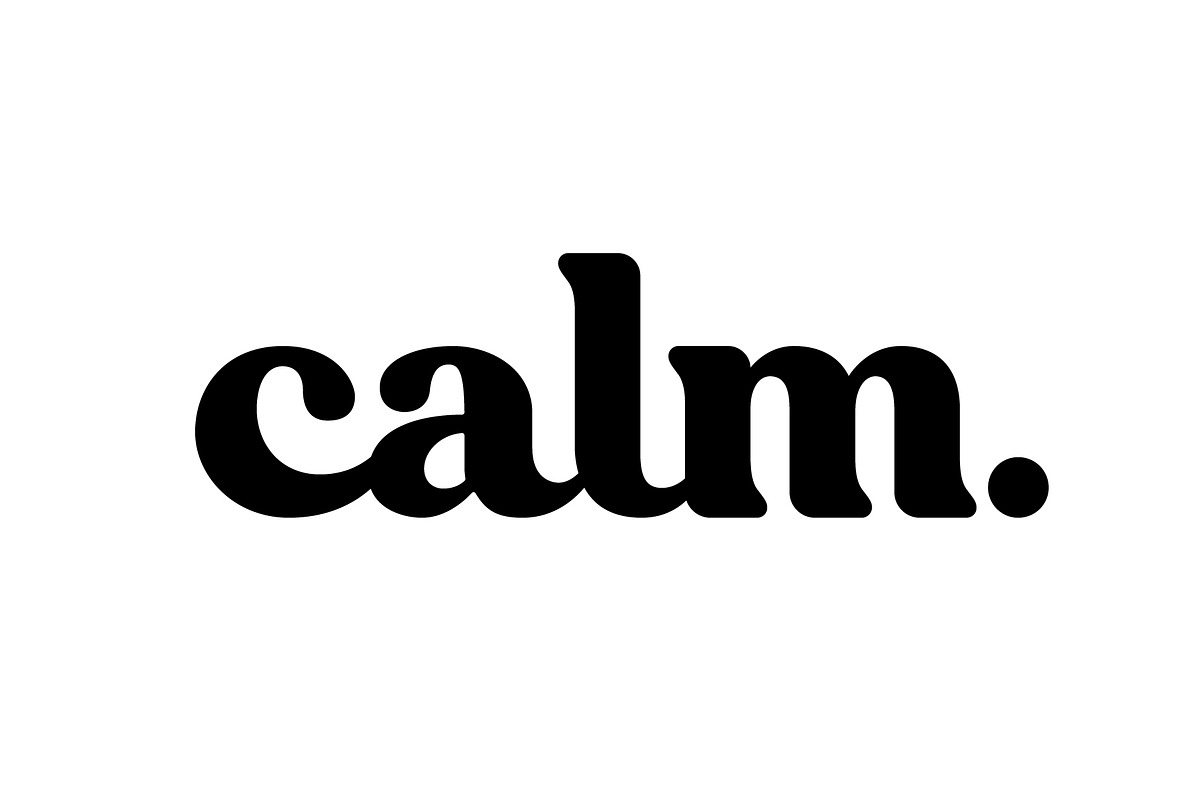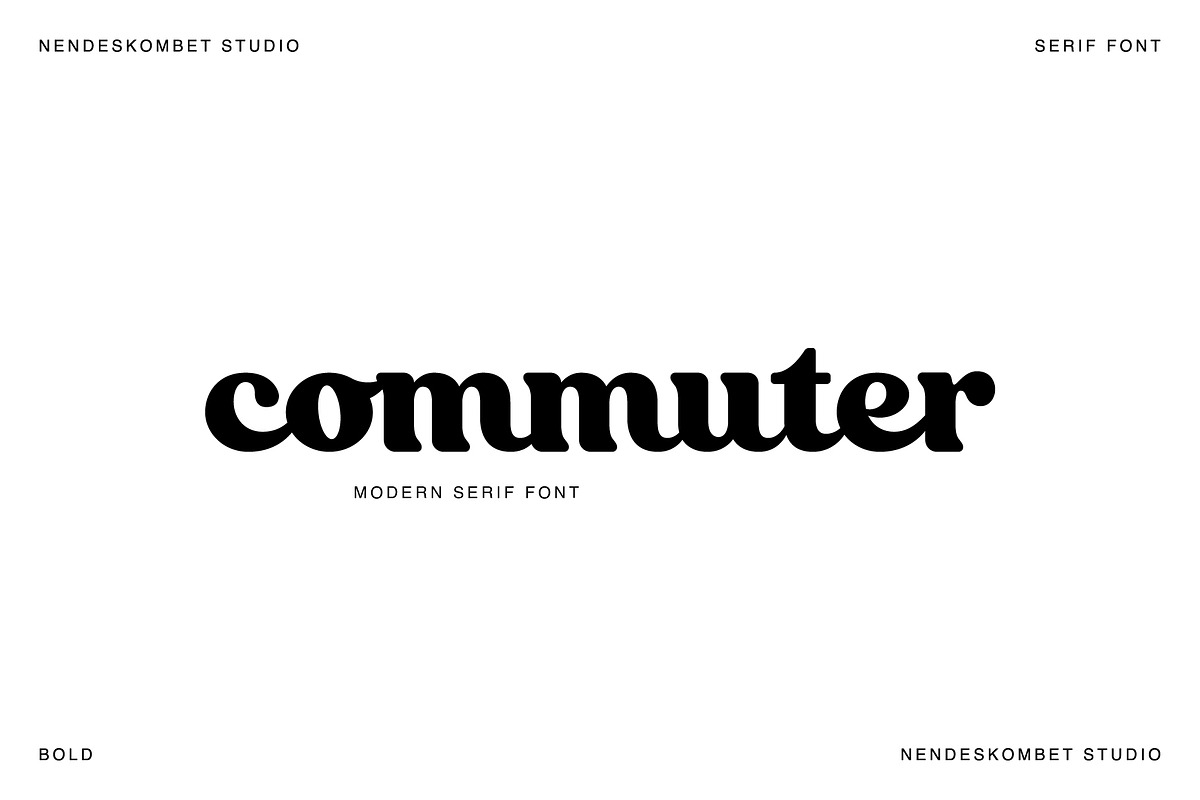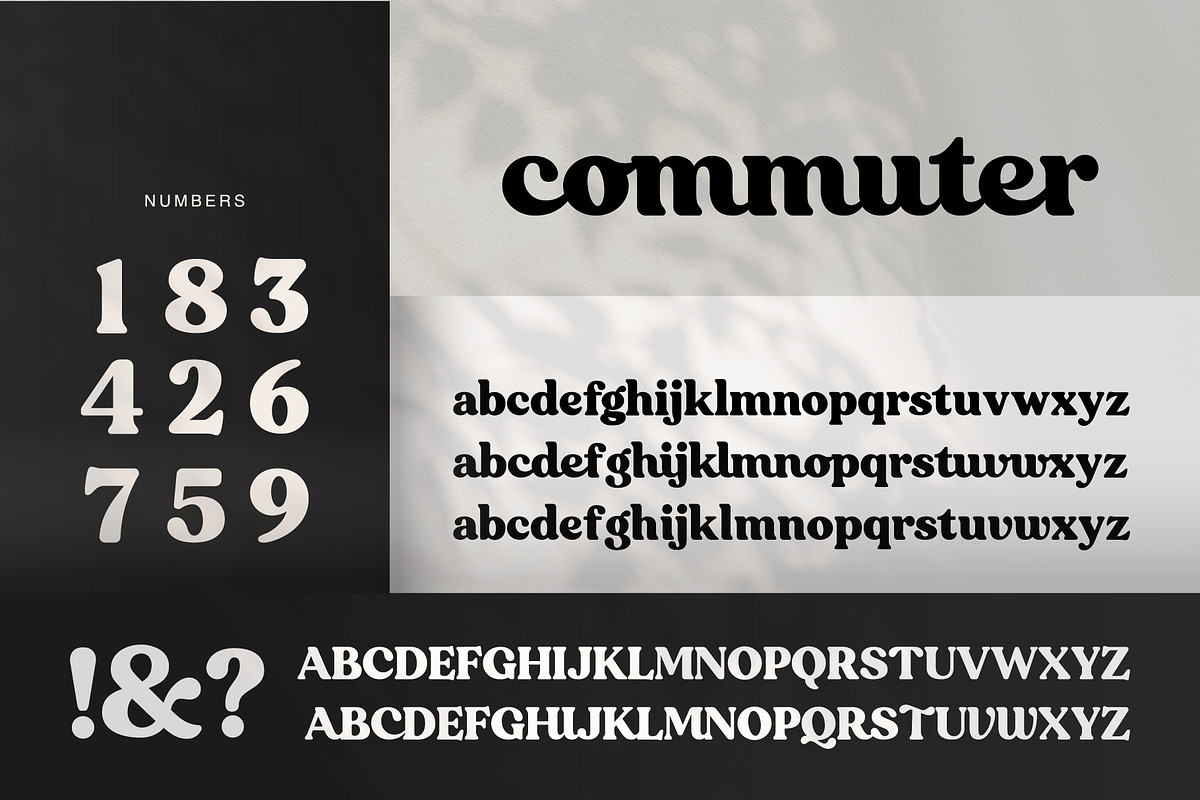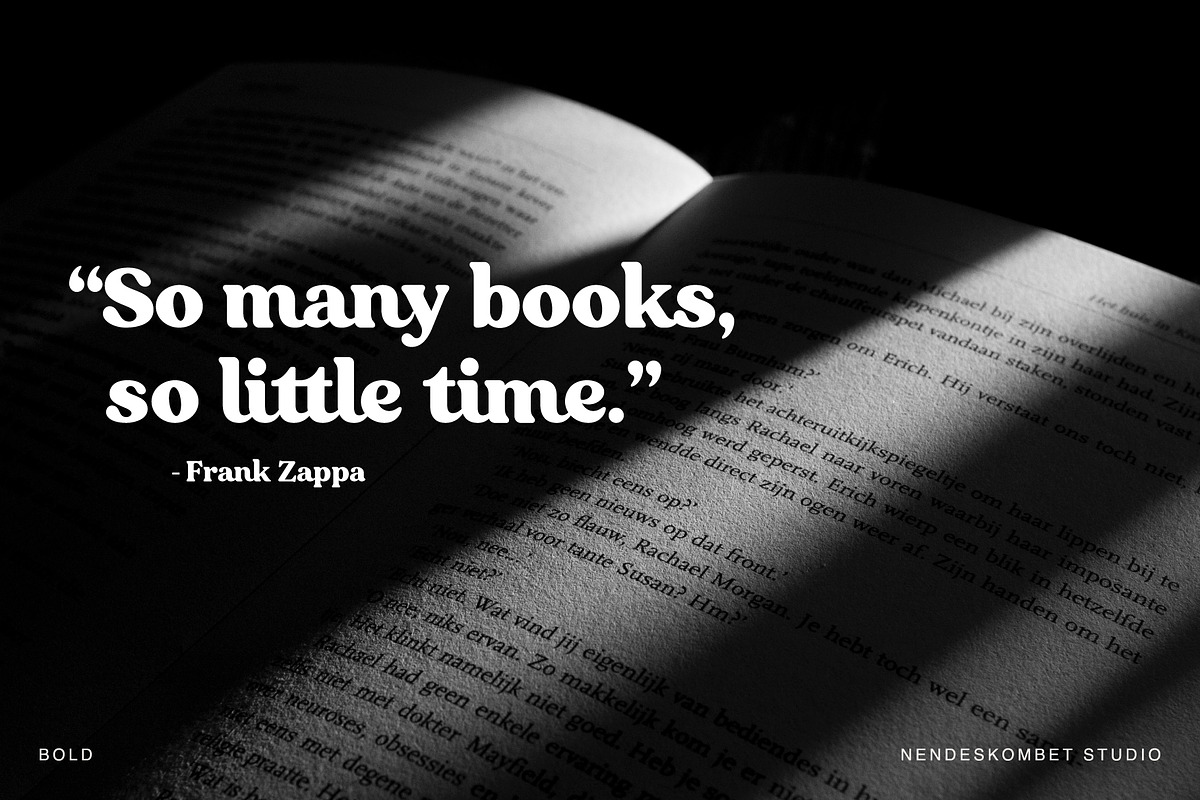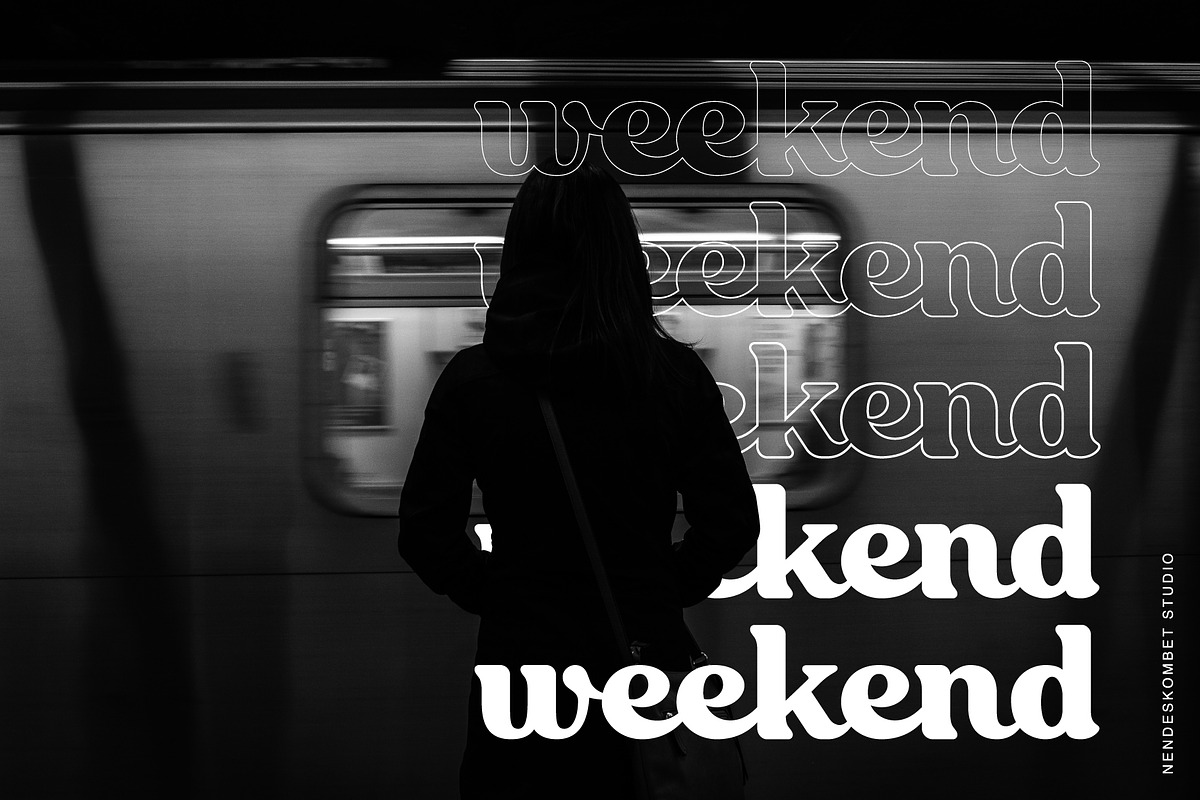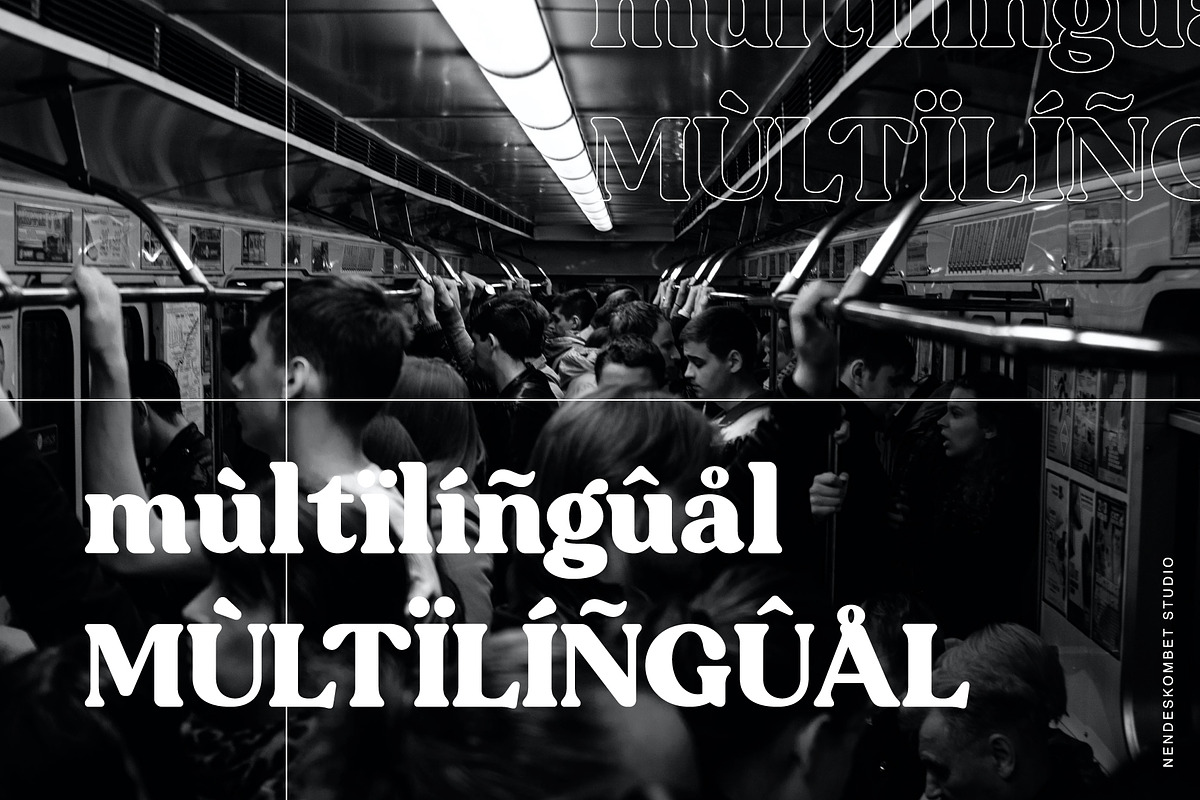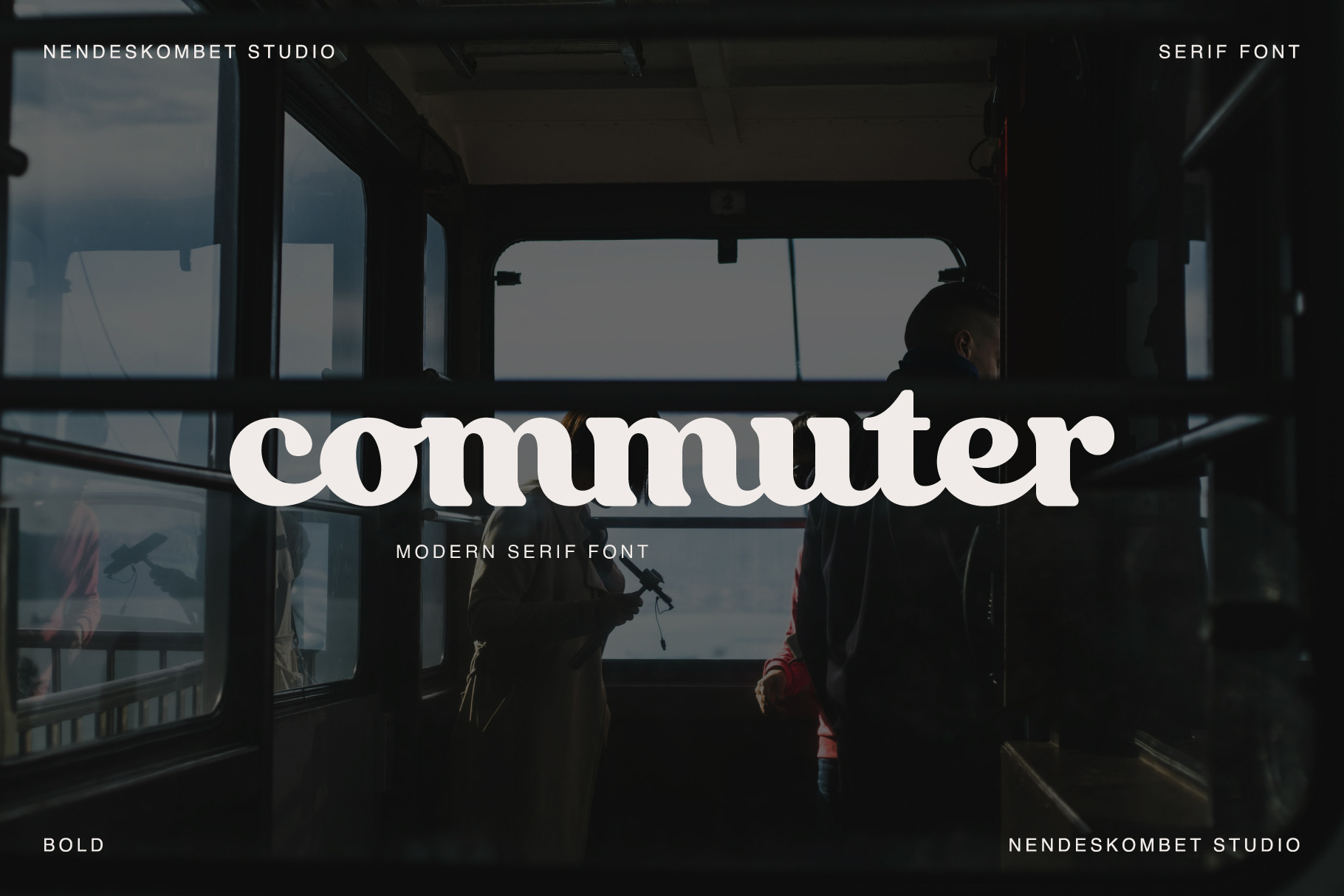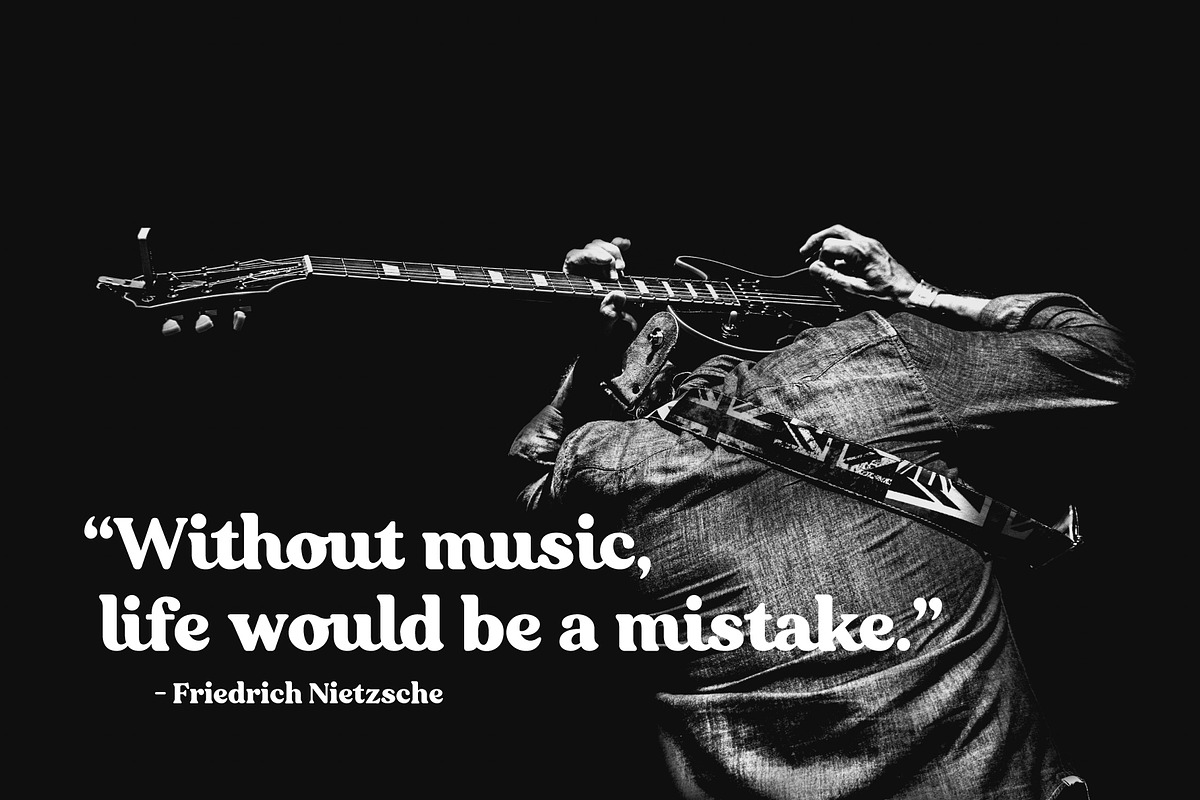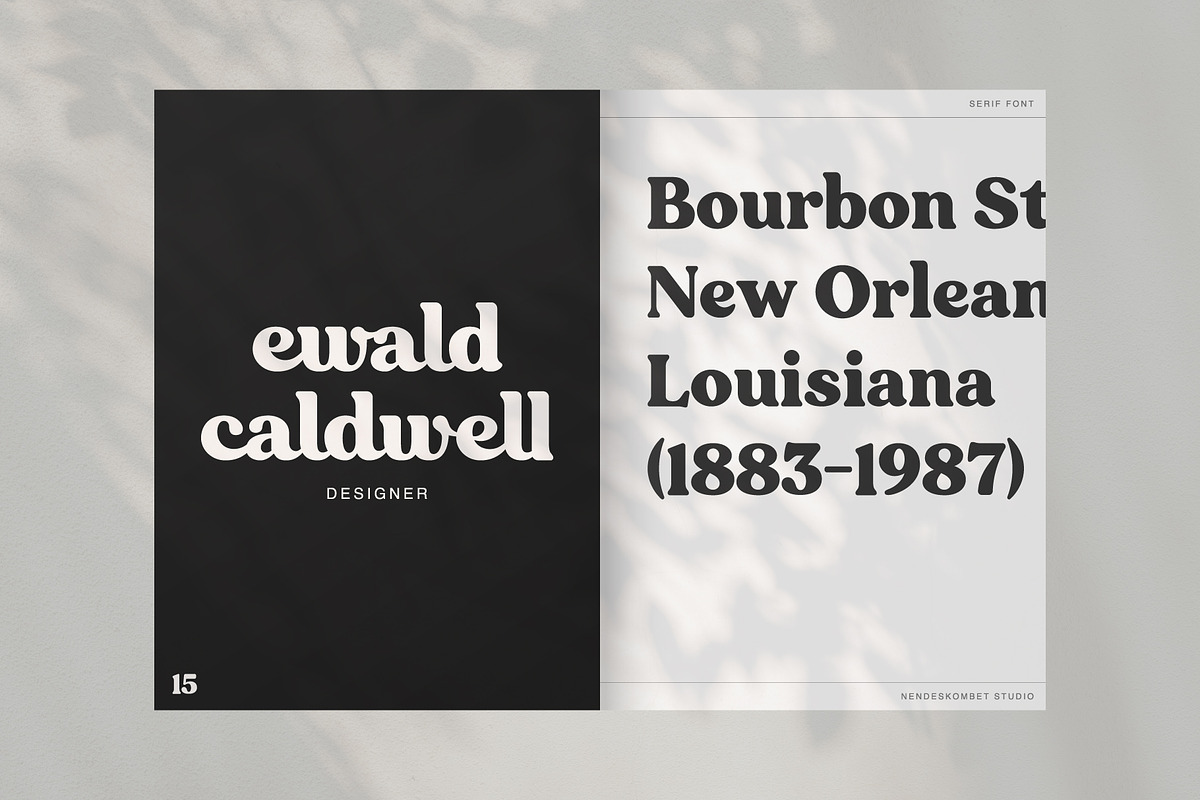
commuter - modern serif font
Introducing commuter
commuter is a minimalist modern elegant font with connection between letters, tons of special alternative glyphs appropriate, and multilingual support. It's a very versatile font that works great in large and small sizes. commuter is perfect for branding projects, logo design, clothing branding, product packaging, magazine headers, or simply as a stylish text overlay to any background image.
- Stylistic Alternates & Ligatures
- Multiple Languages Supported